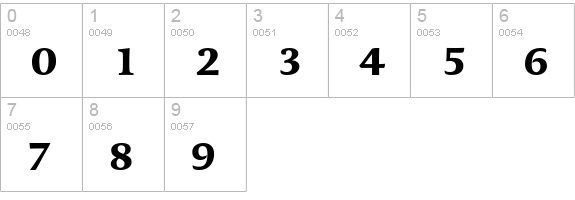
DTLDorianT-Black is a maximum-weight, dramatic variant in the DTLDorianT typeface family \xE2\x80\x94 well suited to maximum-impact headlines, posters, and packaging.